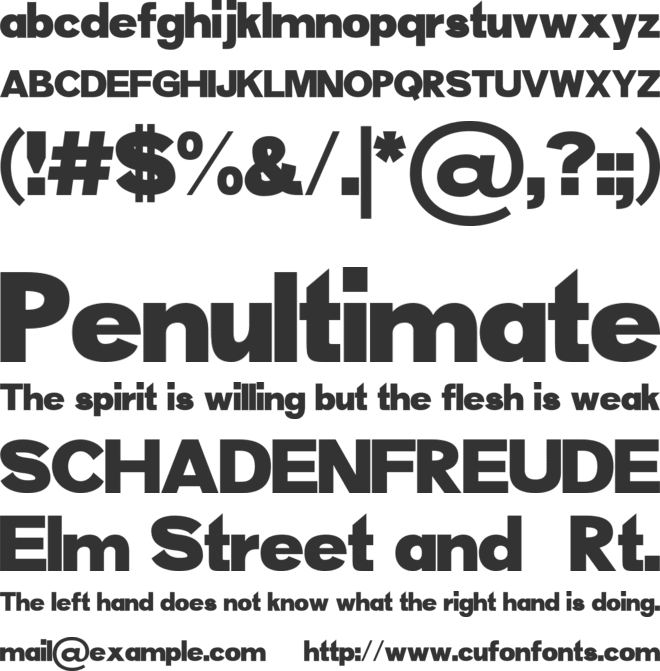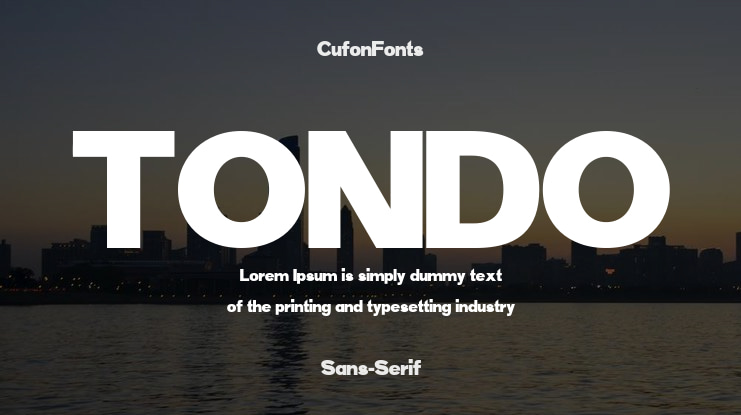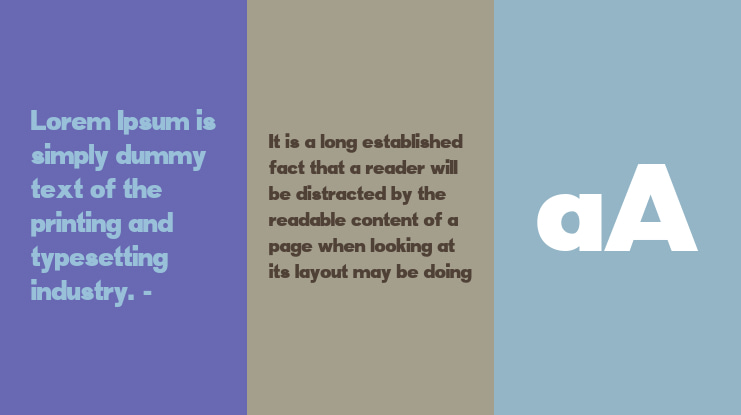
TONDO Font Family
Tondo is a fat sans serif with minimalist punch and multilingual support—perfect for packaging, fashion branding, and modern editorial design.